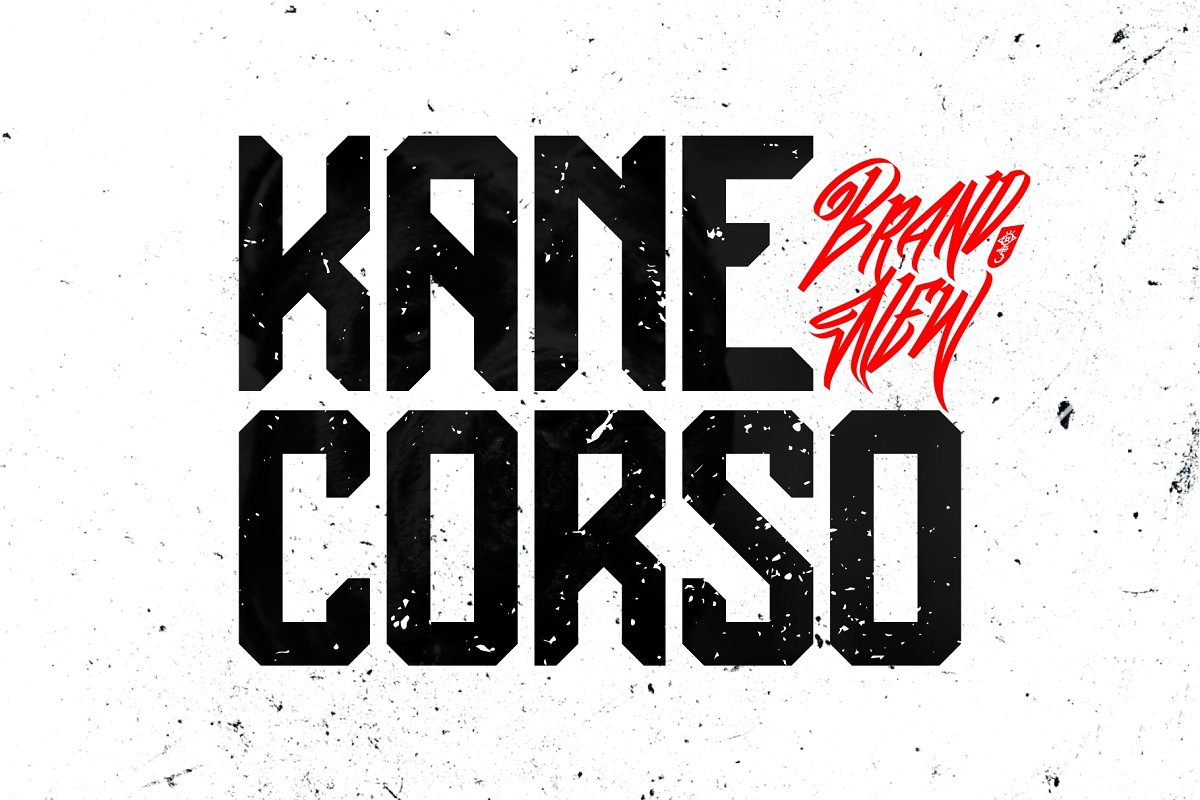
KANE CORSO Font a brand new fot from JFK use for branding, fashion, illustration, and especially sport event and design. you can have a great combination with Wall Hunter Font.